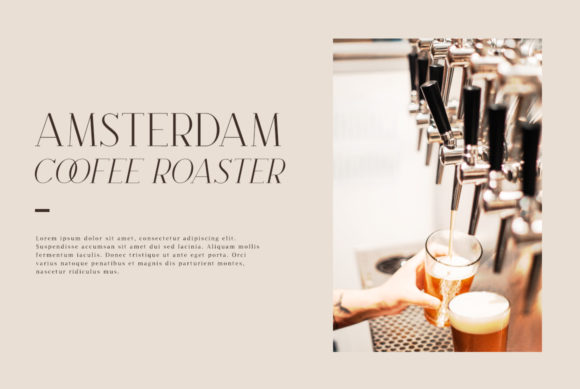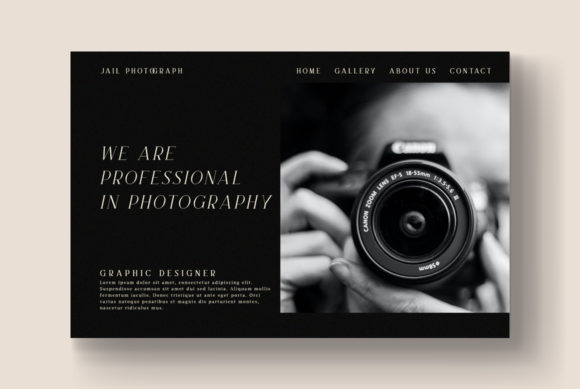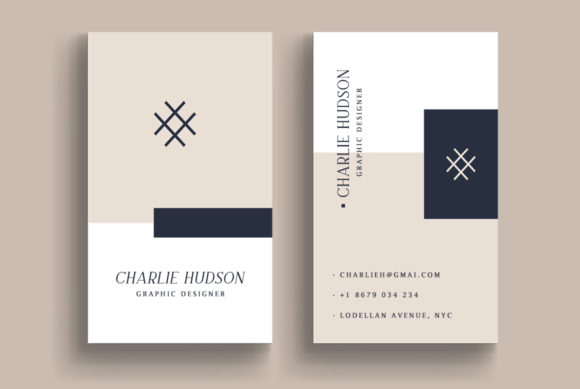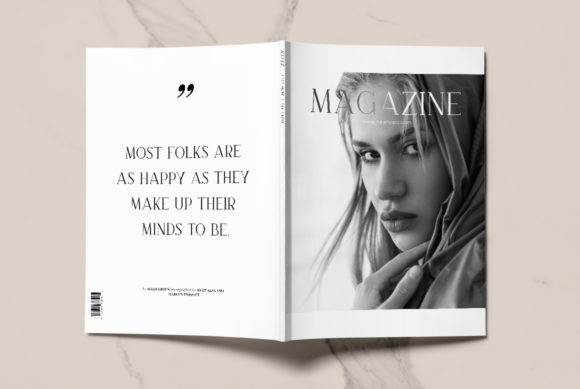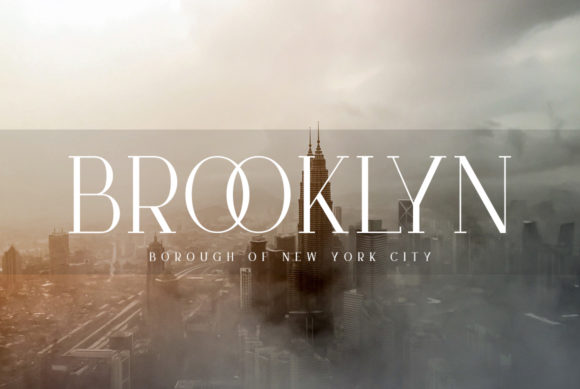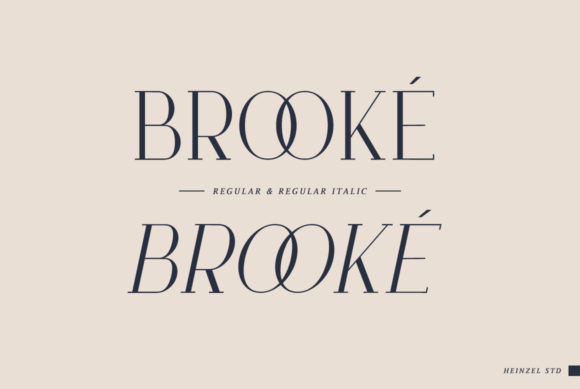
Discover the Elegance of Brooké Font: Your New Go-To for Timeless Designs
In the vast universe of typography, finding the perfect font that combines elegance, simplicity, and versatility can be a daunting task. However, if you’re on the hunt for a typeface that checks all these boxes and more, look no further than Brooké Font. This neat yet elegant serif font has been making waves in the design community for its impeccable style and adaptability, making it an excellent addition to any designer’s toolkit.
The Essence of Brooké Font
Brooké is characterized by its clean lines, simple structure, and a sophisticated serif finish. This harmonious blend of modern simplicity and traditional elegance gives Brooké a unique charm that can elevate a wide variety of design projects. Whether you’re working on a branding project, a website layout, a craft project, or even a typographic poster, Brooké’s subtle sophistication ensures it fits right in.
One of the standout features of Brooké Font is its incredible versatility. Its neat and uncluttered style allows it to seamlessly integrate into numerous design contexts without overpowering the content or distracting the viewer. This adaptability makes Brooké an invaluable asset for designers who are looking for a reliable, go-to font that can handle everything from:
• Branding and Logotypes: Brooké’s elegant serifs bring a touch of professionalism and class to any brand identity.
• Web Design: Its readability on digital screens makes it perfect for website headings, body text, and more.
• Print Materials: From business cards to billboards, Brooké leaves a lasting impression.
• Crafting and DIY Projects: Add a personalized and refined touch to your handmade crafts and DIY projects.
Why Brooké Stands Out
So, what sets Brooké apart from the myriad of fonts available today? Here are a few reasons why Brooké has captured the hearts of designers and crafters alike:
• Legibility: Brooké’s carefully crafted letterforms ensure excellent legibility, even at smaller sizes.
• Elegance: The subtle serifs add a touch of sophistication, making it suitable for projects that demand a bit of luxury.
• Simplicity: Its clean design ensures that your message takes center stage, without unnecessary distractions.
Incorporating Brooké into Your Designs
Brooké Font is more than just a typeface; it’s a design companion that brings elegance, simplicity, and versatility to the table. Whether you’re a professional designer working on a client’s project or a crafting enthusiast looking to add a professional touch to your DIY ventures, Brooké has the potential to become your favorite go-to font. Its timeless appeal and adaptability make it an excellent choice for a wide range of projects. So, why wait? Explore the possibilities with Brooké Font today and discover how it can elevate your designs to new heights!